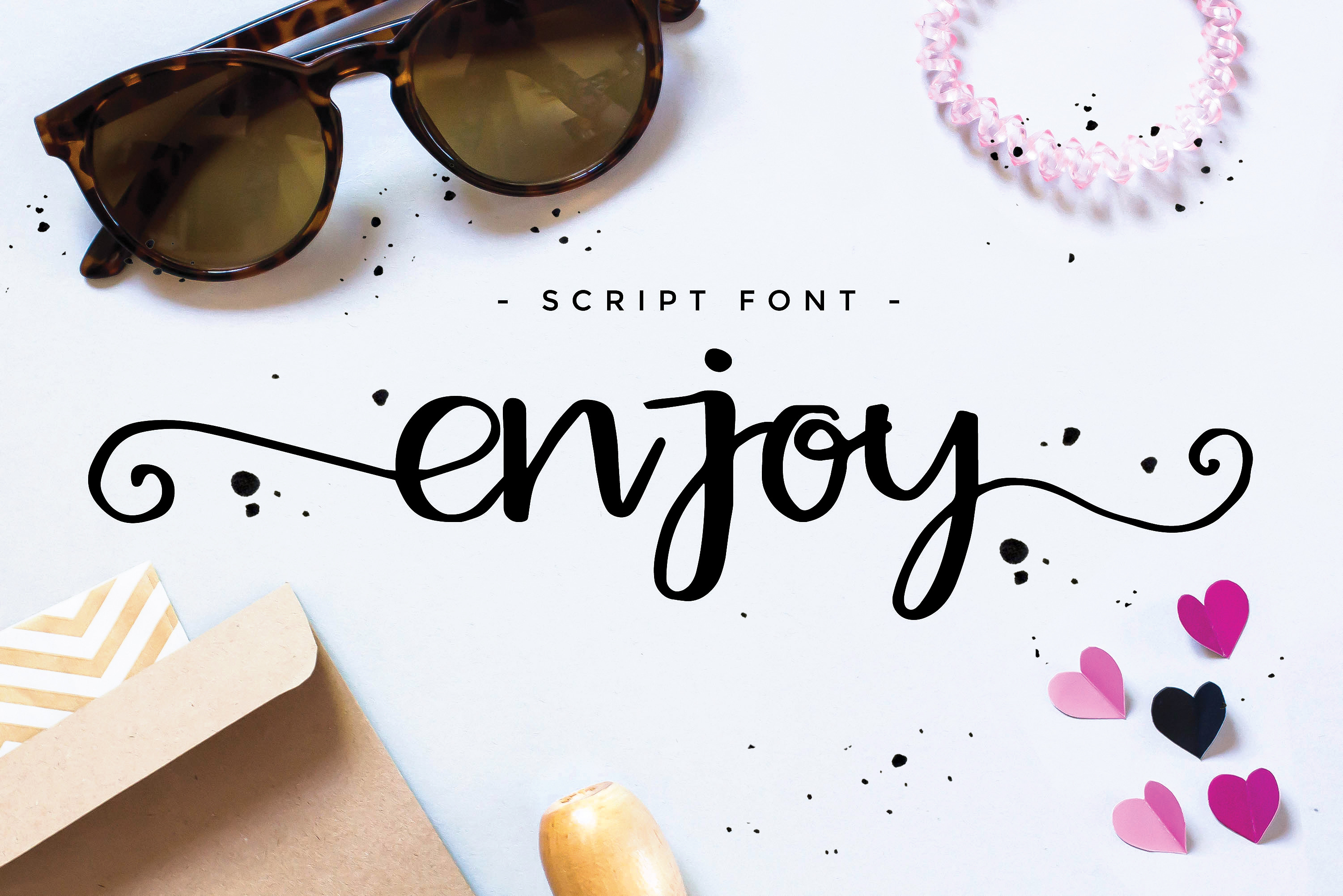
Enjoy script font
Hello! I'm very happy to present my script font ENJOY! I would be very happy if you'll like it ;) In the archive you can find 3 files: regular font and also 2 alternative fonts (with right and left side extras ). You can use this font for any purpose: for greeting card, wedding invitation designs, for branding or already for shirt design if you want :) Enjoy!